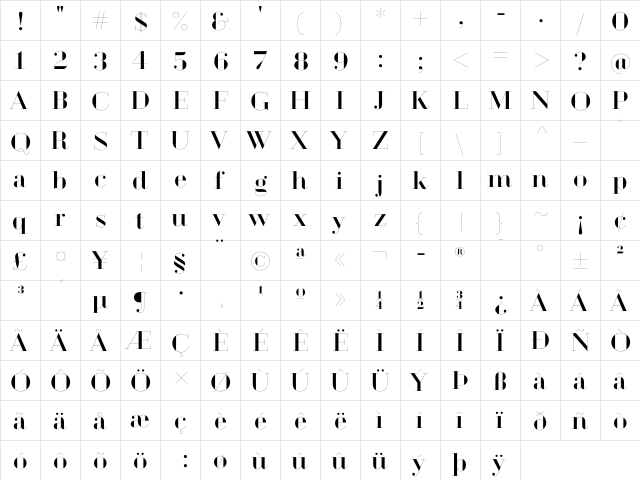
Geotica One Regular
Design Context for Geotica One Typeface
Geotica One is a composed and adaptable typeface that performs quietly and consistently across a wide range of design contexts.